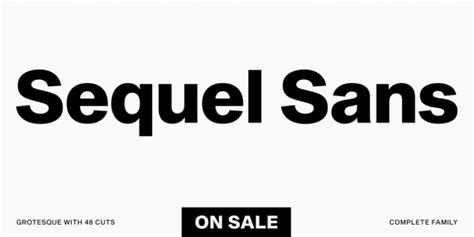
Sequel Sans Font. Sequel sans contains 72 styles and family package. Web sequel sans font family was designed by oliver jeschke and published by ogj type design.
Web sequel sans font family was designed by oliver jeschke and published by ogj type design. Sequel sans is a new chapter in the book of neogrotesque typefaces. Sequel sans is a modern and neat sans serif font family that was designed by oliver jeschke and published by ogj type design. Designed in cooperation with the max bill georges vantongerloo foundation in. Sequel sans is an homage to max bill, the. Its core idea and its name were conceived in collaboration with the max bill georges va. Web how about 20,000+ commercial fonts with unlimited downloads download now. Web sequel sans vf d2 display italic. Sequel sans contains 72 styles and family package. Sequel sans contains 72 styles and family package options.
Its core idea and its name were conceived in collaboration with the max bill georges va. Sequel sans contains 72 styles and family package options. Web how about 20,000+ commercial fonts with unlimited downloads download now. Sequel sans is a new chapter in the book of neogrotesque typefaces. Web sequel sans font family was designed by oliver jeschke and published by ogj type design. Web sequel sans vf d2 display italic. Designed in cooperation with the max bill georges vantongerloo foundation in. Web by dafont june 13, 2023. Its core idea and its name were conceived in collaboration with the max bill georges va. Sequel sans is an homage to max bill, the. Sequel sans contains 72 styles and family package.